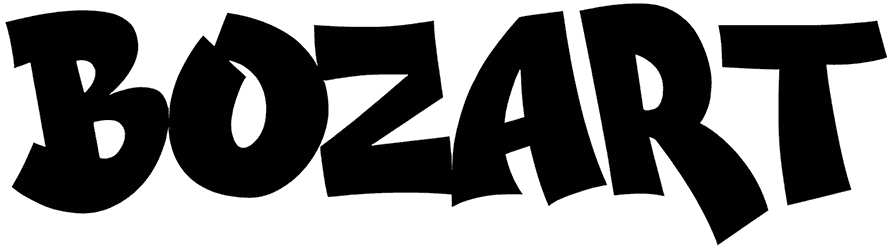
Bozart Font
Bold, cartoony, fresh, and exciting are the adjectives that we can consider for Bozart font. By using this graffiti font, you can evoke the joy and enthusiasm of children in your projects and make the viewer excited to read the writings.
This font does not include lowercase letters but has two different styles of uppercase letters that work very well on book covers, computer games, and animation posters.